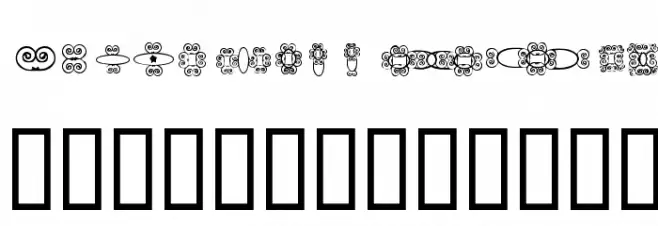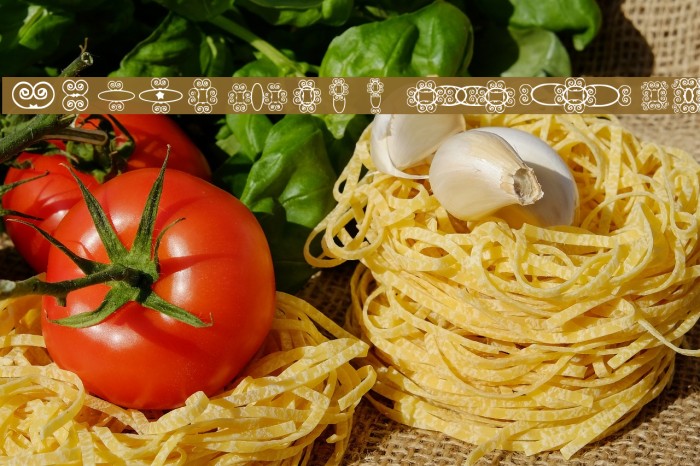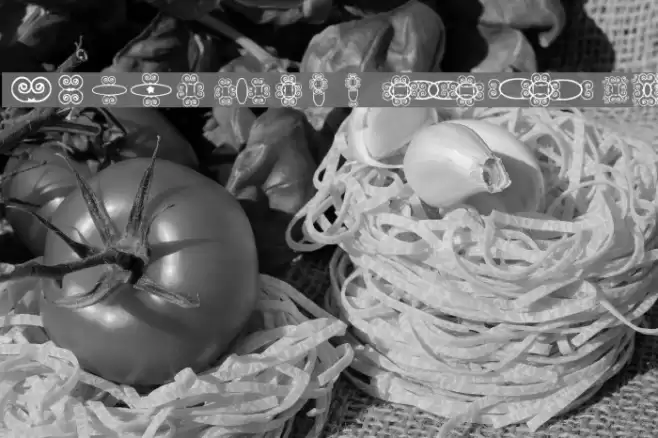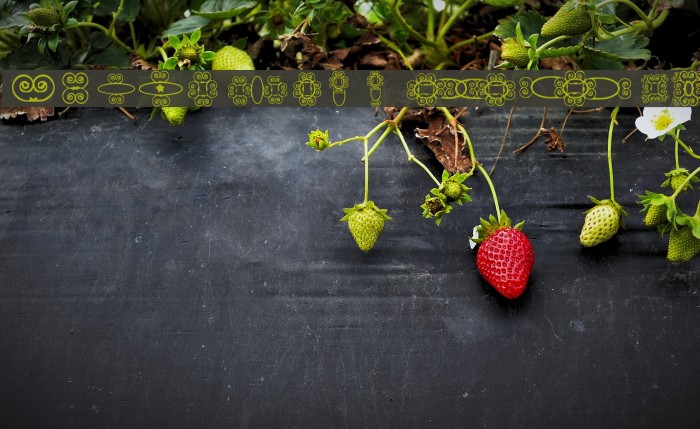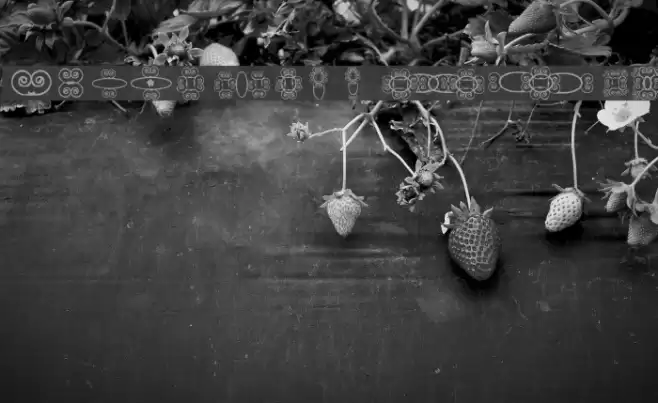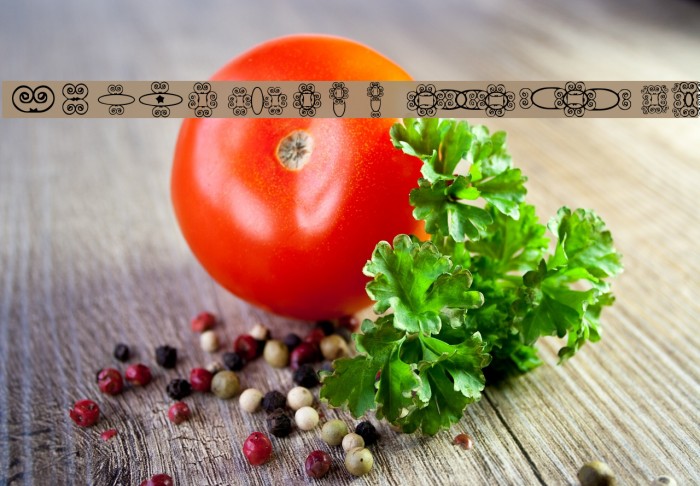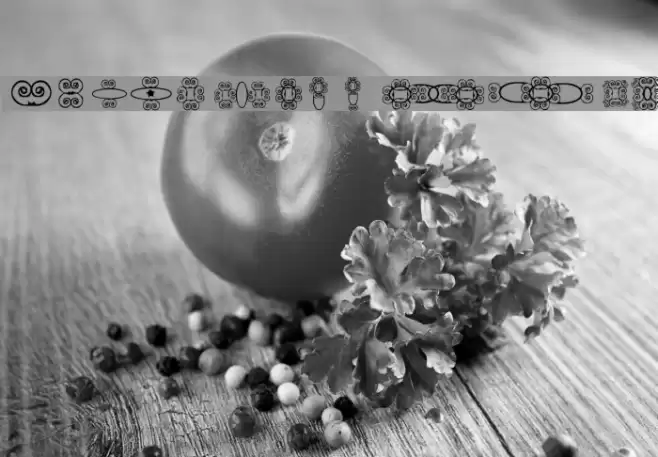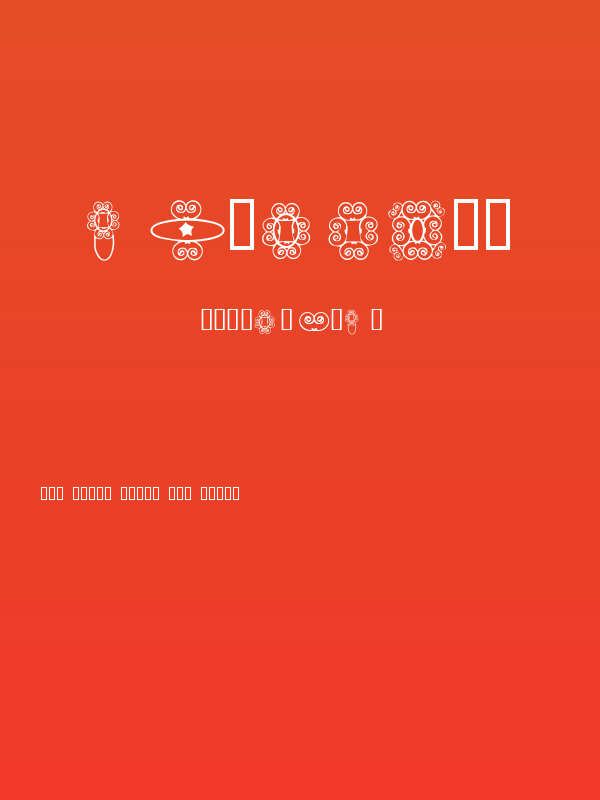
HD_GEMS4 Font
HD_GEMS4 Description
This font features a highly decorative and intricate design, characterized by elaborate swirls and flourishes that create a sense of elegance and sophistication. The characters are composed of complex patterns, making them appear almost like ornate symbols rather than traditional letters. This style is reminiscent of vintage calligraphy, with a modern twist that adds a unique flair. The font's artistic nature makes it stand out, ideal for projects that require a touch of luxury and creativity. Its intricate details suggest a handcrafted quality, perfect for designs that aim to convey a sense of exclusivity and refinement.
| Use Case | Logos, Decorative text |
| Proposed Projects | Ideal for wedding invitations, luxury branding, artistic posters, and decorative book covers. |